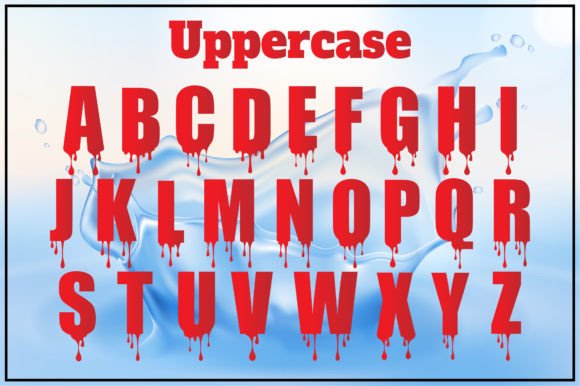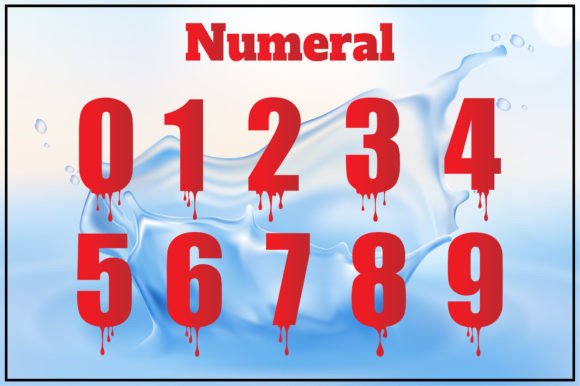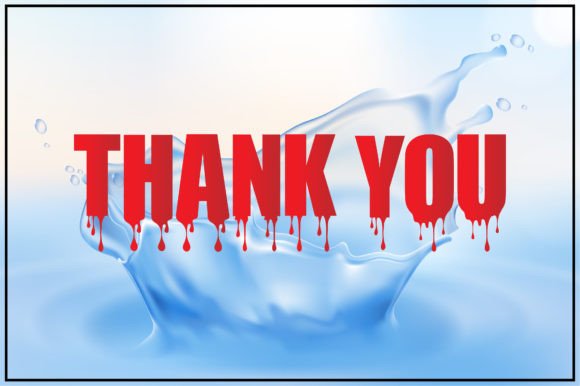
Dripping Font: Adding a Touch of Horror to Your Designs
In the world of typography, fonts play a crucial role in conveying the tone and mood of a design. For designers and crafters looking to add a touch of horror to their projects, the Dripping Font is an excellent choice. This thick-lettered yet unique and original display font is perfect for creating a sense of eeriness and foreboding.
What is Dripping Font?
Dripping Font is a display font designed to evoke a sense of horror and unease. Its authentic look and feel make it an ideal choice for designers who want to add a personal and realistic touch to their designs. The font’s thick letters and unique design elements give it a distinctive look that sets it apart from other fonts.
Key Features of Dripping Font
- Unique and Original Design: Dripping Font boasts a one-of-a-kind design that is sure to grab attention.
- Thick-Lettered: The font’s thick letters give it a bold and imposing presence.
- Horror Vibe: The font’s design elements are carefully crafted to evoke a sense of horror and unease.
- Authentic Look: The font’s authentic look and feel make it perfect for designers who want to add a personal and realistic touch to their designs.
Uses of Dripping Font
Dripping Font is a versatile font that can be used for a variety of projects, including:
- Horror Movie Posters: The font’s horror vibe makes it perfect for creating eye-catching movie posters.
- Halloween-themed Designs: The font’s spooky design elements make it ideal for creating Halloween-themed designs, such as invitations, flyers, and brochures.
- Gothic-inspired Designs: The font’s unique design elements make it a great choice for creating gothic-inspired designs, such as logos, posters, and social media graphics.
- Creepy Typography: The font’s bold and imposing presence makes it perfect for creating creepy typography, such as quote posters and inspirational quotes.
Tips for Using Dripping Font
To get the most out of Dripping Font, here are some tips to keep in mind:
- Use it Sparingly: Due to its bold and imposing presence, it’s best to use Dripping Font sparingly to avoid overwhelming the design.
- Pair it with Other Fonts: Pairing Dripping Font with other fonts can help create a visually appealing design.
- Experiment with Colors: The font’s design elements can be enhanced or muted with different colors, so don’t be afraid to experiment.
Dripping Font is a unique and original display font that can add a touch of horror to any design. Its authentic look and feel make it perfect for designers who want to create a personal and realistic touch. With its versatility and bold design elements, Dripping Font is sure to become a go-to font for designers and crafters looking to create eye-catching designs.
Whether you’re creating a horror movie poster, a Halloween-themed design, or a gothic-inspired logo, Dripping Font is an excellent choice. So, why not give it a try and see how it can elevate your designs to the next level?